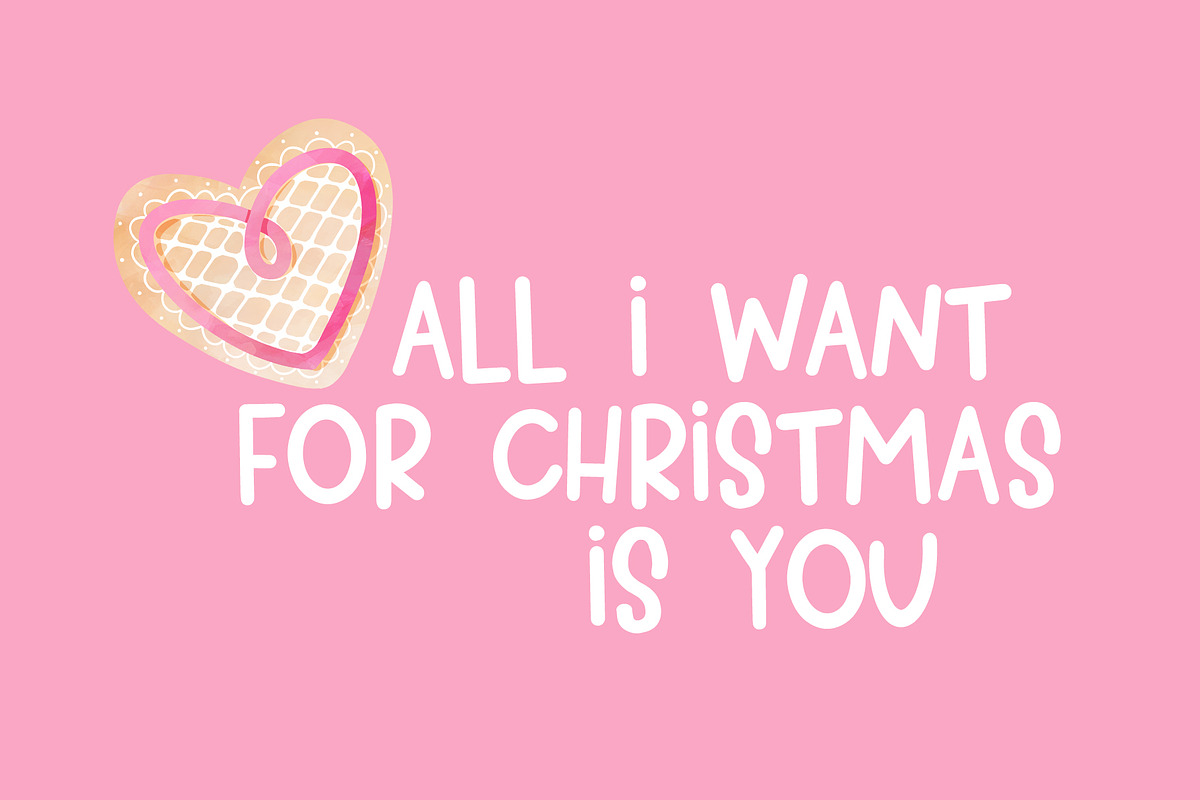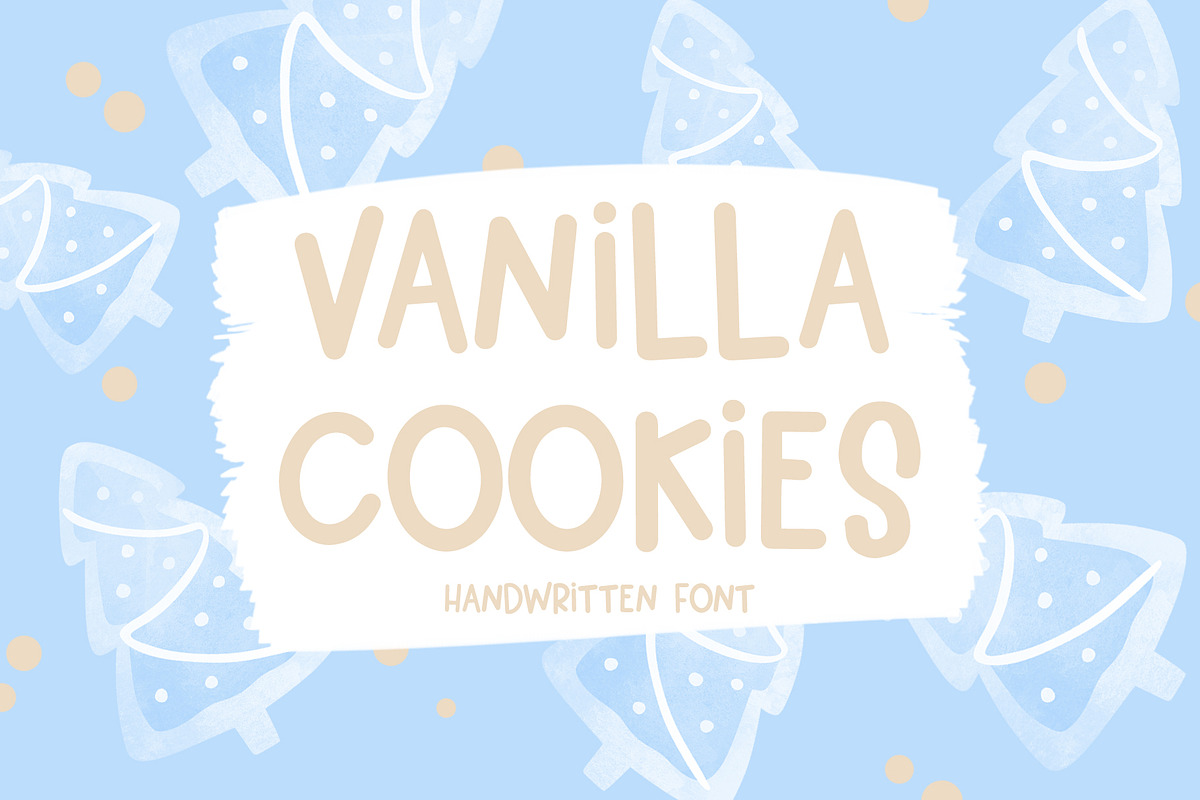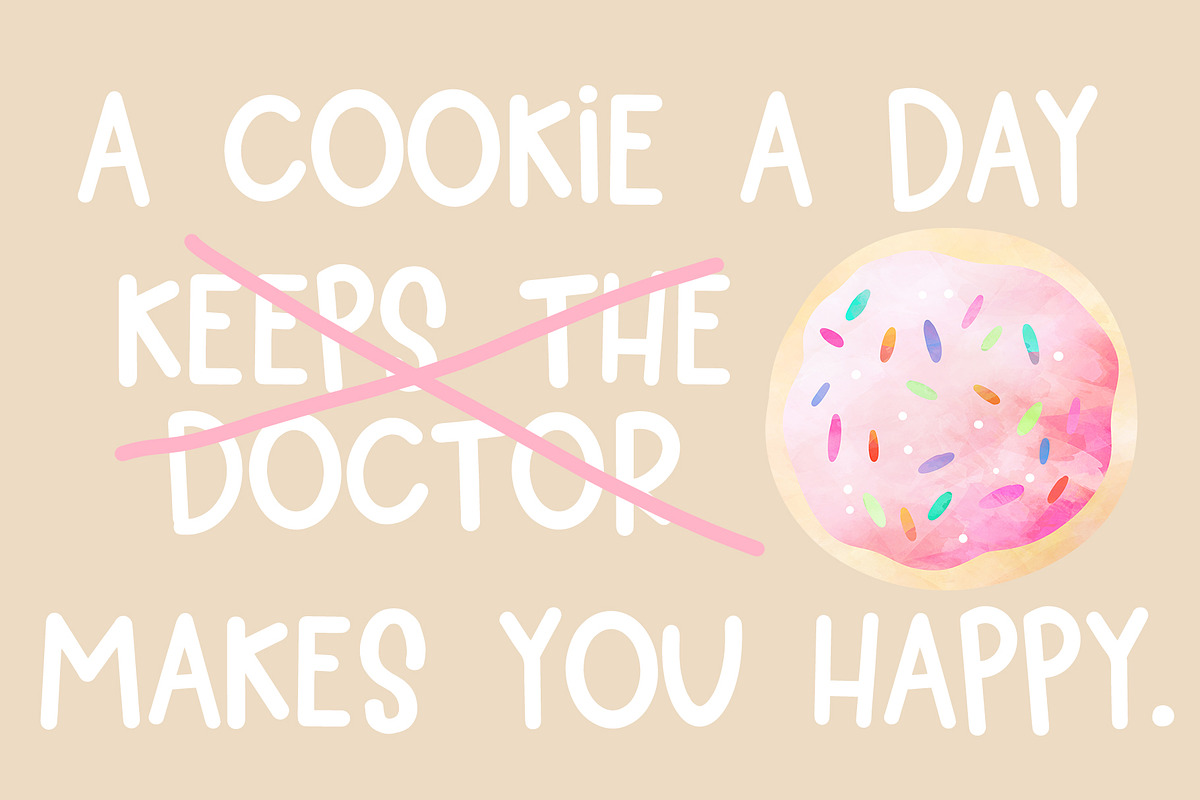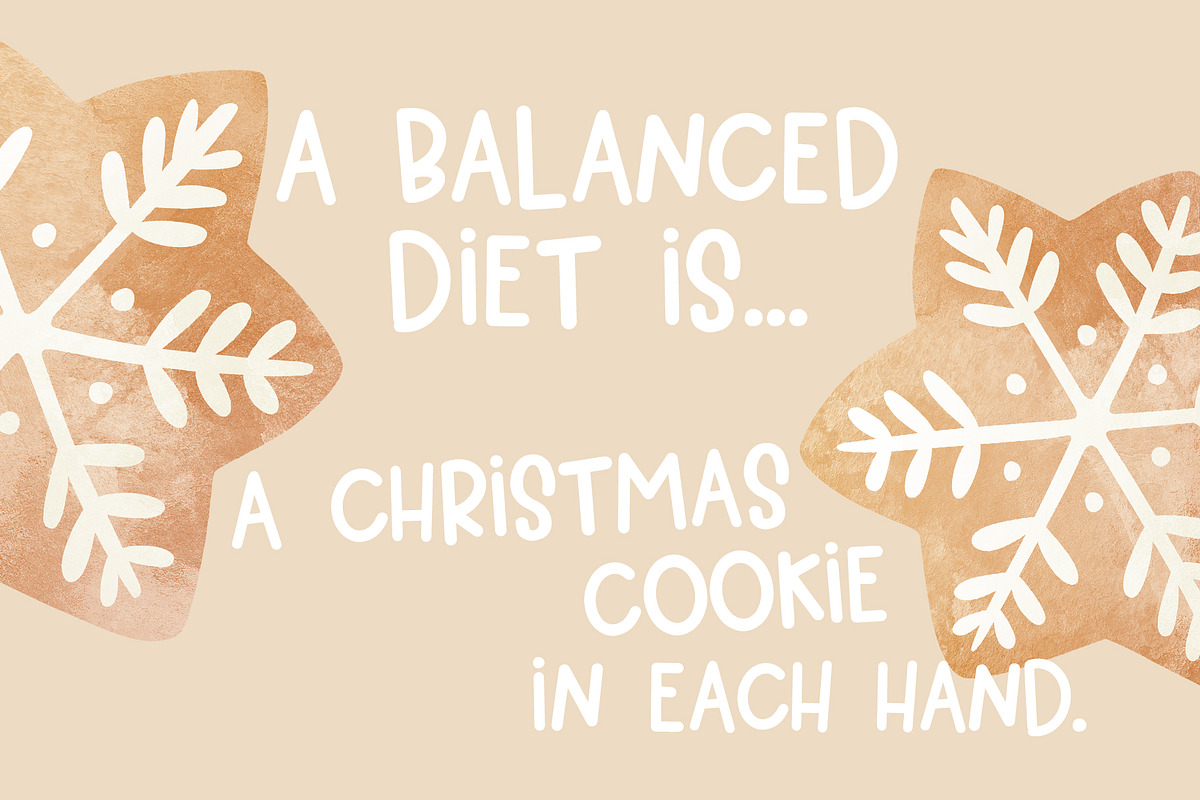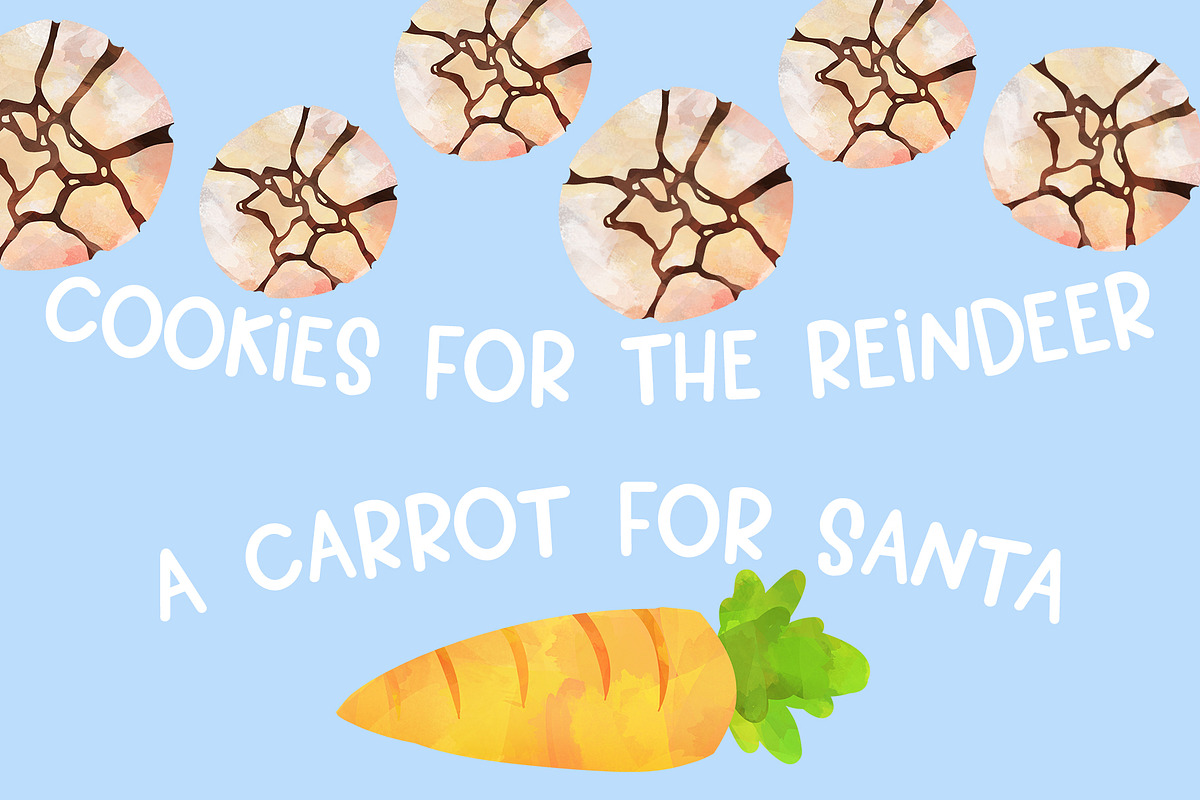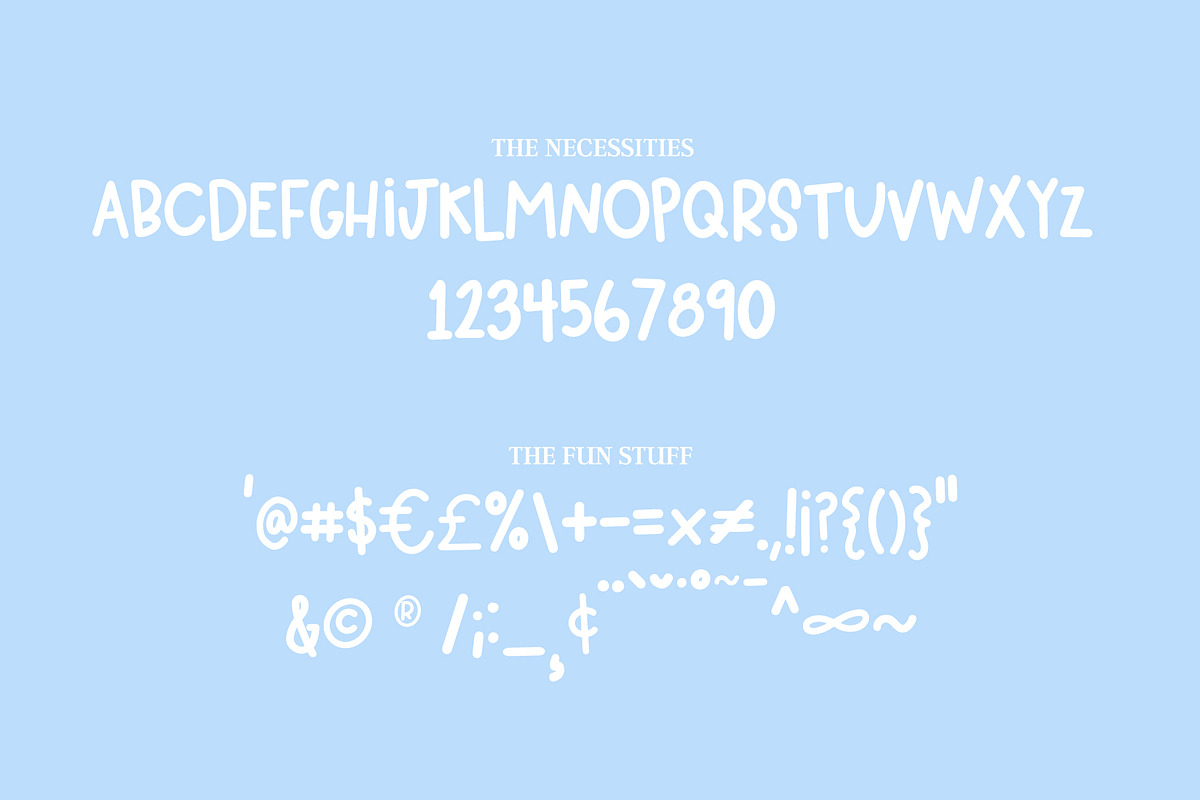
Vanilla Cookies | Handwritten Font
Vanilla Cookies is perfect for logos, books, cards, posters, printables-use it anywhere a fun and happy look is needed!